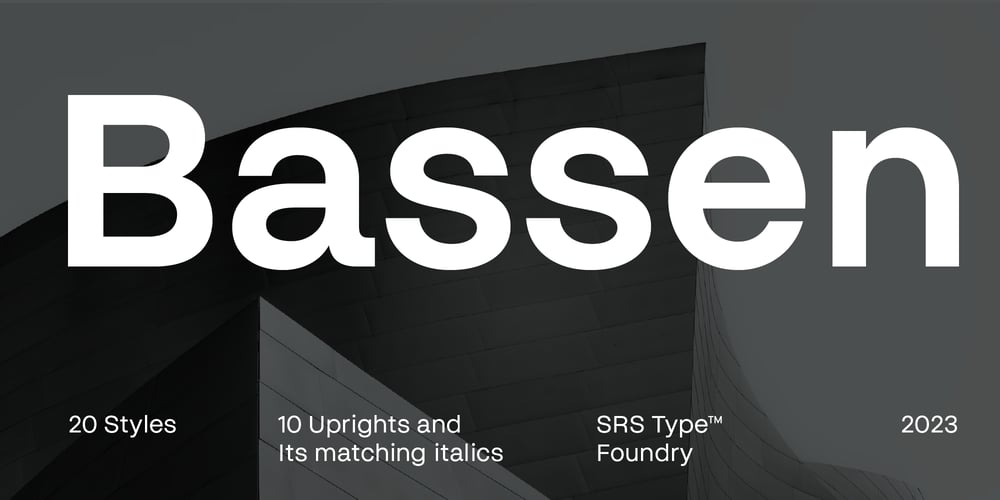
Bassen Font Family was designed by Soung-ryung Shin and published by SRS Type. Bassen contains 20 styles and family package options. Bassen is a contemporary neo-grotesque typefaces that offers 10 uprights and matching italics. This typeface harmoniously combines classic respect with modern inspiration. Bassen is polite, neutral, highly legible, and aesthetically pleasing. Its low cap height makes it particularly versatile for mobile and website applications. Bassen seamlessly blends with any project, providing natural elegance, harmony, and perfect balance.